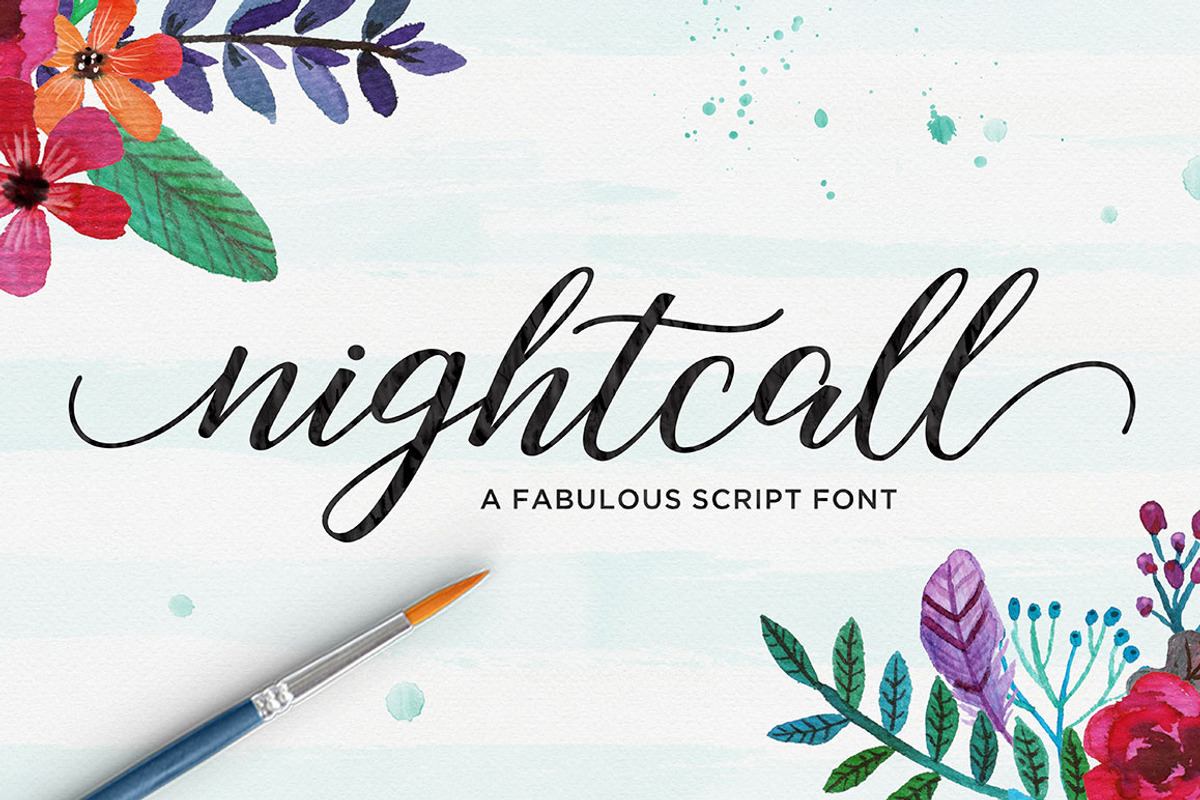
The Nightcall Script Font Free Download is a bold and expressive handwritten typeface that combines elegance with a touch of dramatic flair. Perfect for creating eye-catching logos, invitations, social media graphics, and branding materials, this font adds a unique, personal touch to your designs. Please note, for commercial use, a license must be purchased. You can download it for free for testing purposes.
With its smooth curves and bold strokes, the Nightcall Script Font Free Download is ideal for projects that need a mix of sophistication and personality. Whether you're designing for high-end branding, creative event promotions, or custom stationery, this font will give your designs a modern and artistic feel.